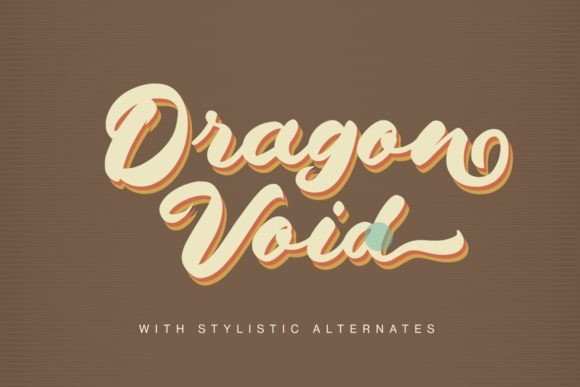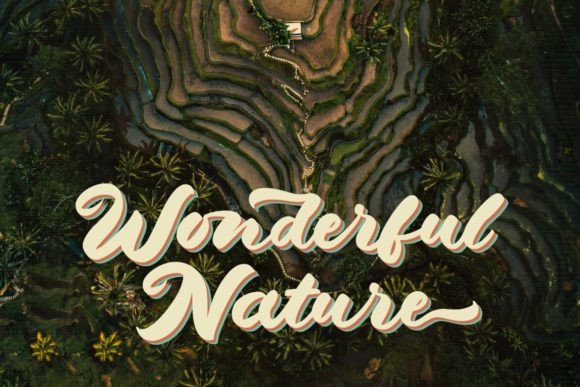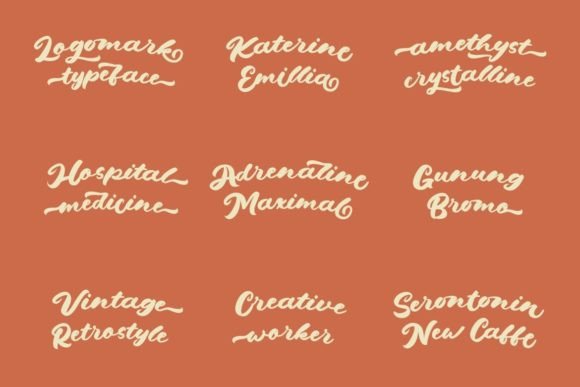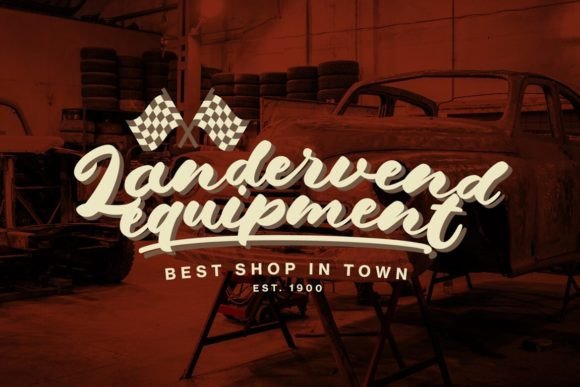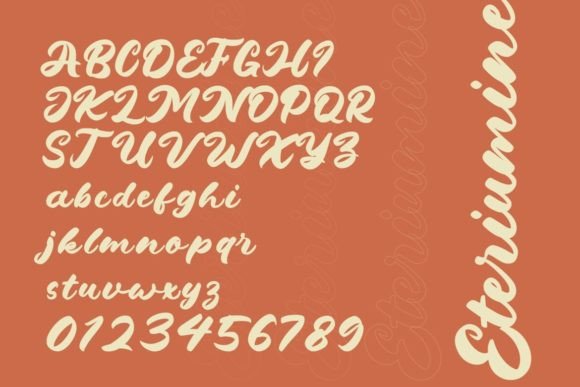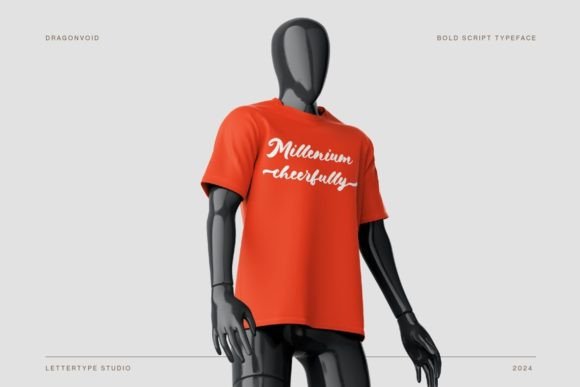
Dragonvoid Font: The Ultimate Bold and Retro Font for Creative Projects
Are you a designer or crafter looking for a font that can add a touch of boldness and retro charm to your creative projects? Look no further than the Dragonvoid Font. This versatile font is perfect for a wide range of applications, from photography and watermarks to social media posts, advertisements, logos, and branding. In this article, we’ll explore the features and benefits of the Dragonvoid Font and how it can elevate your designs to the next level.
What is Dragonvoid Font?
Dragonvoid Font is a bold and retro font that is designed to make a statement. Its unique and eye-catching design makes it perfect for projects that require a touch of nostalgia and playfulness. The font is highly legible, even at small sizes, making it ideal for use in a variety of contexts, from product designs and labels to wedding designs and product packaging.
Key Features of Dragonvoid Font
- Bold and Retro Design: The Dragonvoid Font features a bold and retro design that is sure to grab attention.
- Highly Legible: The font is highly legible, even at small sizes, making it perfect for use in a variety of contexts.
- Versatile: The Dragonvoid Font is versatile and can be used for a wide range of applications, from photography and watermarks to social media posts and product designs.
- Easy to Use: The font is easy to use and can be easily integrated into your design workflow.
Uses of Dragonvoid Font
The Dragonvoid Font is perfect for a wide range of creative projects, including:
- Photography: Use the Dragonvoid Font to add a touch of boldness and retro charm to your watermarks and photo titles.
- Social Media Posts: Make your social media posts stand out with the Dragonvoid Font.
- Advertisements: Use the Dragonvoid Font to create eye-catching advertisements that grab attention.
- Logos and Branding: The Dragonvoid Font is perfect for creating unique and memorable logos and branding materials.
- Invitations: Add a touch of elegance and sophistication to your invitations with the Dragonvoid Font.
- Product Designs: Use the Dragonvoid Font to create stunning product designs that stand out from the crowd.
- Labels: The Dragonvoid Font is perfect for creating labels that are both functional and visually appealing.
- Stationery: Add a touch of personality to your stationery with the Dragonvoid Font.
- Wedding Designs: Use the Dragonvoid Font to create beautiful and memorable wedding designs.
- Product Packaging: Make your product packaging stand out with the Dragonvoid Font.
Benefits of Using Dragonvoid Font
The Dragonvoid Font offers a range of benefits for designers and crafters, including:
- Increased Visibility: The bold and retro design of the Dragonvoid Font makes it perfect for projects that require high visibility.
- Improved Brand Recognition: The unique and eye-catching design of the Dragonvoid Font can help to improve brand recognition and create a lasting impression.
- Versatility: The Dragonvoid Font is versatile and can be used for a wide range of applications, making it a valuable addition to any designer’s toolkit.
- Easy to Use: The font is easy to use and can be easily integrated into your design workflow.
| Font Name | Dragonvoid Font |
The Dragonvoid Font is a bold and retro font that is perfect for creative projects that require a touch of nostalgia and playfulness. Its unique and eye-catching design makes it perfect for a wide range of applications, from photography and watermarks to social media posts and product designs. With its high legibility, versatility, and ease of use, the Dragonvoid Font is a valuable addition to any designer’s toolkit.